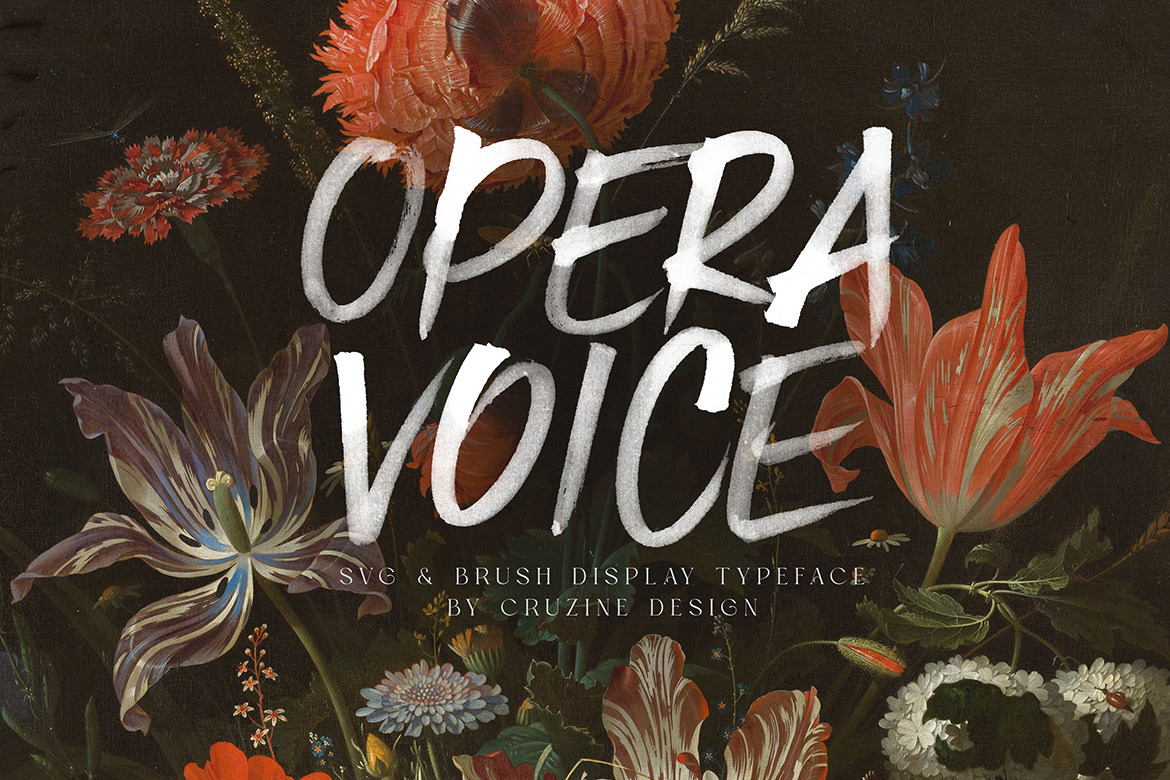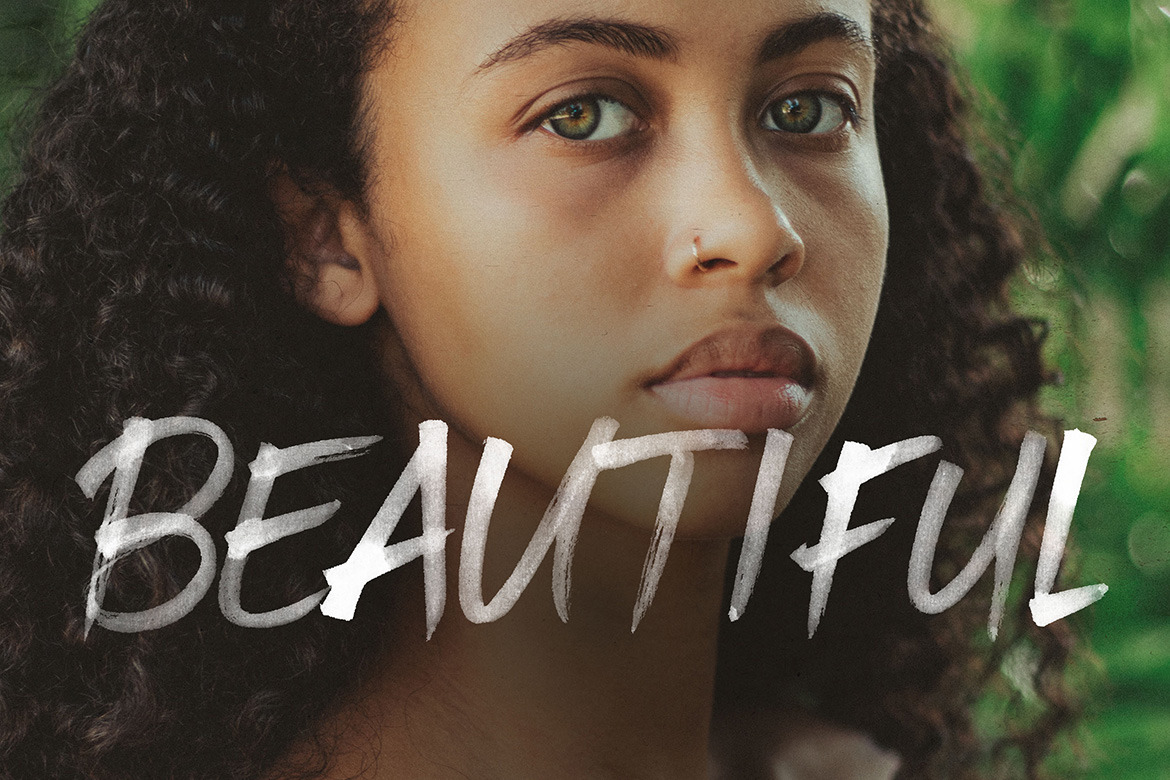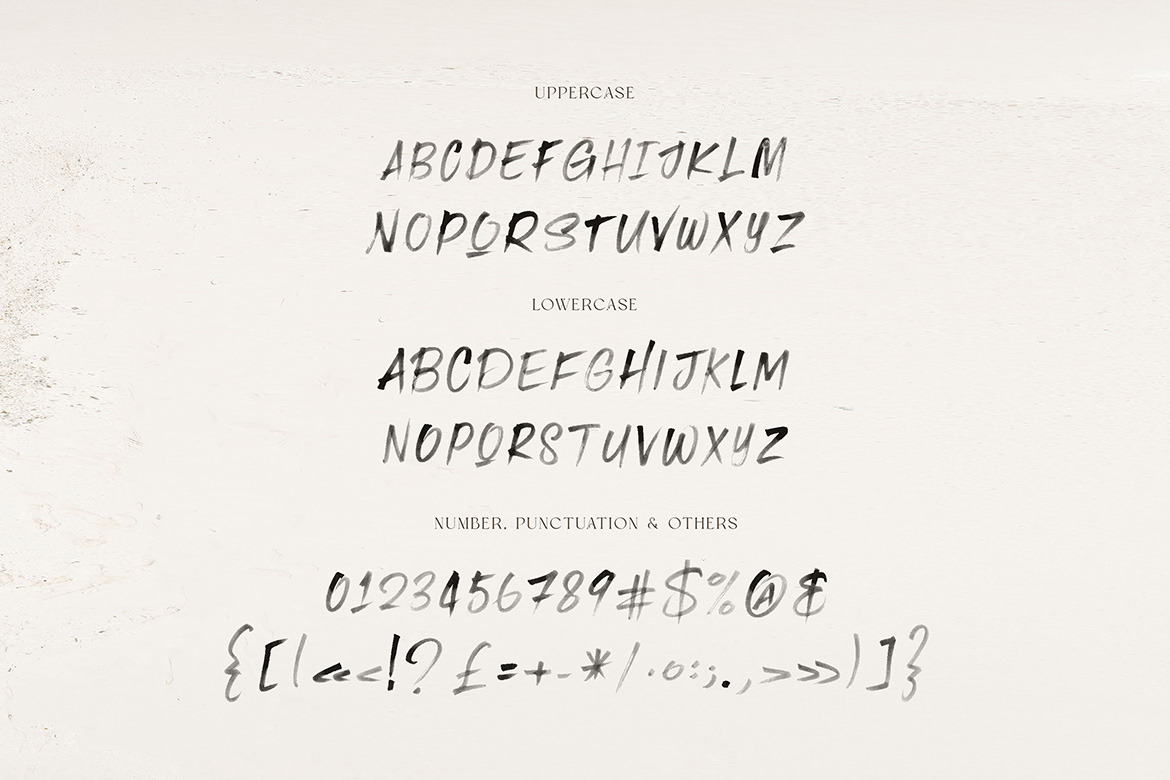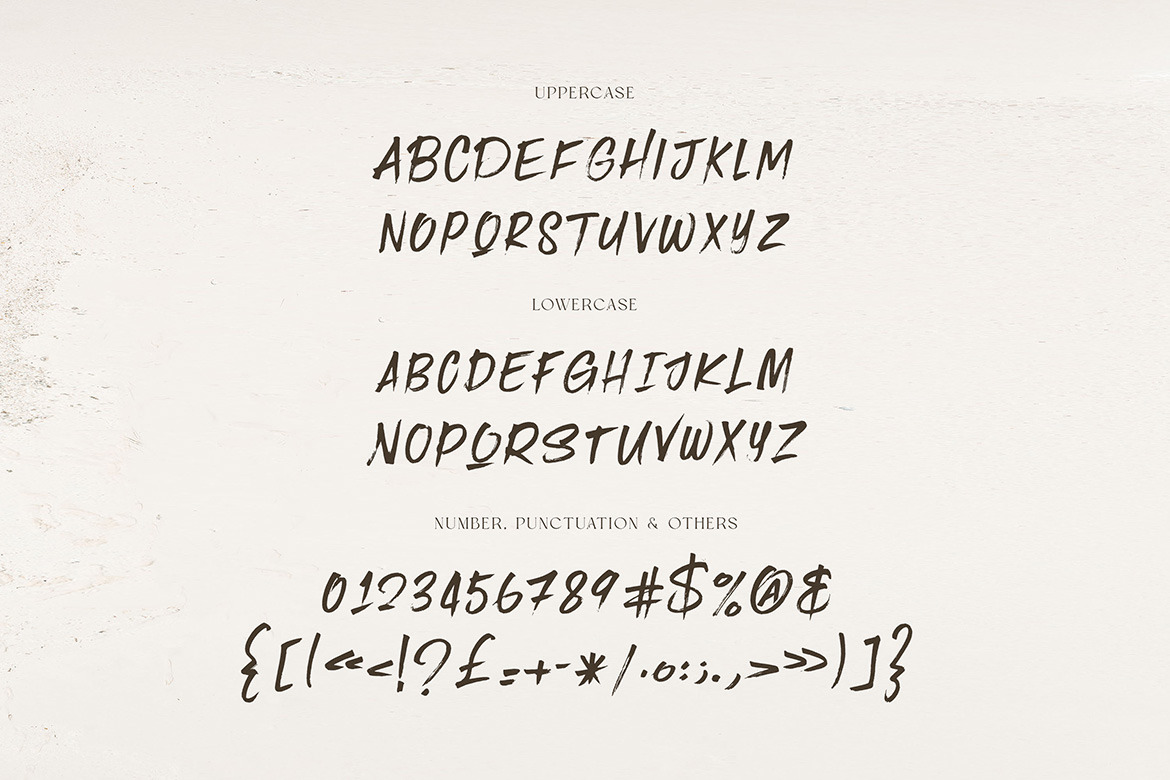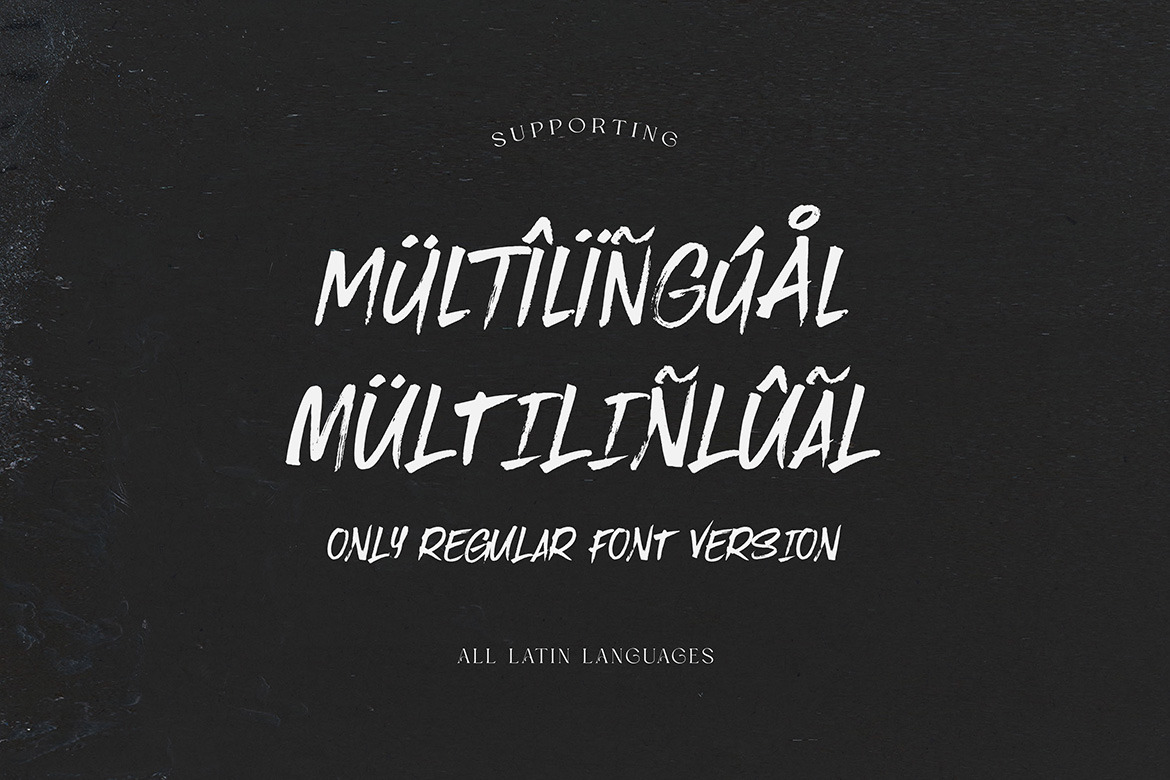
Opera Voice SVG Brush Font
Brush, rough or grunge style sans serif display font for your new projects. Handwritten with bold watercolor marker. Great for grunge, urban or artistic projects!